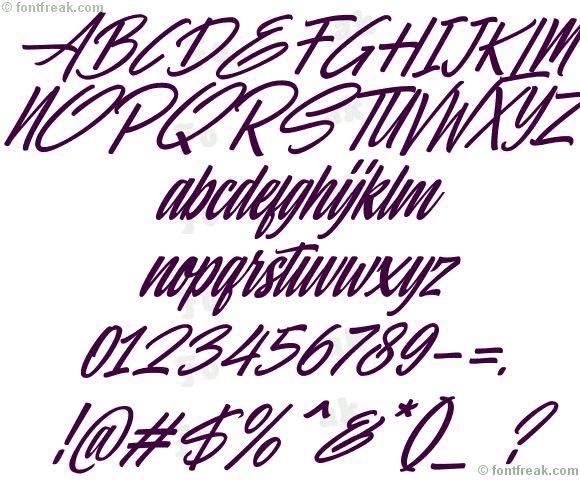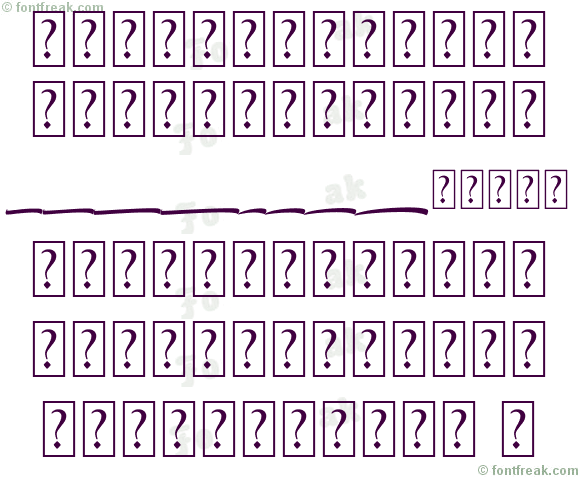
Hiluck Swash
Hiluck Swash Italic
Hiluck
Hiluck Italic
About Hiluck Swash
Hiluck Swash is an elegant display font by Kong Font, designed to captivate and inspire. This font falls into the decorative category, characterized by its distinct swash elements that add a playful yet sophisticated flair to any text. The strokes exhibit a moderate weight, creating a balanced contrast that enhances readability while maintaining an artistic touch. The generous spacing between letters ensures clarity, making it perfect for various applications.
Ideal for wedding invitations, Hiluck Swash brings a romantic and whimsical charm that sets the tone for special occasions. Its unique letterforms make it a fantastic choice for branding materials, allowing small business owners to convey their identity with style. Additionally, this font shines on restaurant menus, where it can evoke a sense of elegance and creativity in the dining experience. Content creators will find it suitable for social media graphics, as its eye-catching design can help elevate online presence and engagement.
Targeted towards graphic designers and small business owners, Hiluck Swash provides a versatile option for those looking to make a statement. The font's artistic style allows for creative freedom, enabling users to craft visually stunning projects that stand out in a crowded market.
What sets the Hiluck Swash font apart is its ability to blend playfulness with sophistication. The decorative swashes not only enhance the aesthetic appeal but also add a unique personality to the text, making it memorable. Whether you’re designing an invitation, branding a product, or creating engaging content, the Hiluck Swash font free download offers a fresh and stylish solution that will help your projects shine. With all rights reserved, this freeware option ensures accessibility without compromising on quality or design.